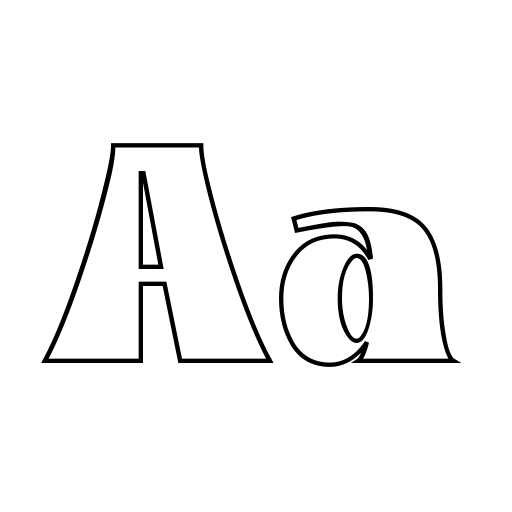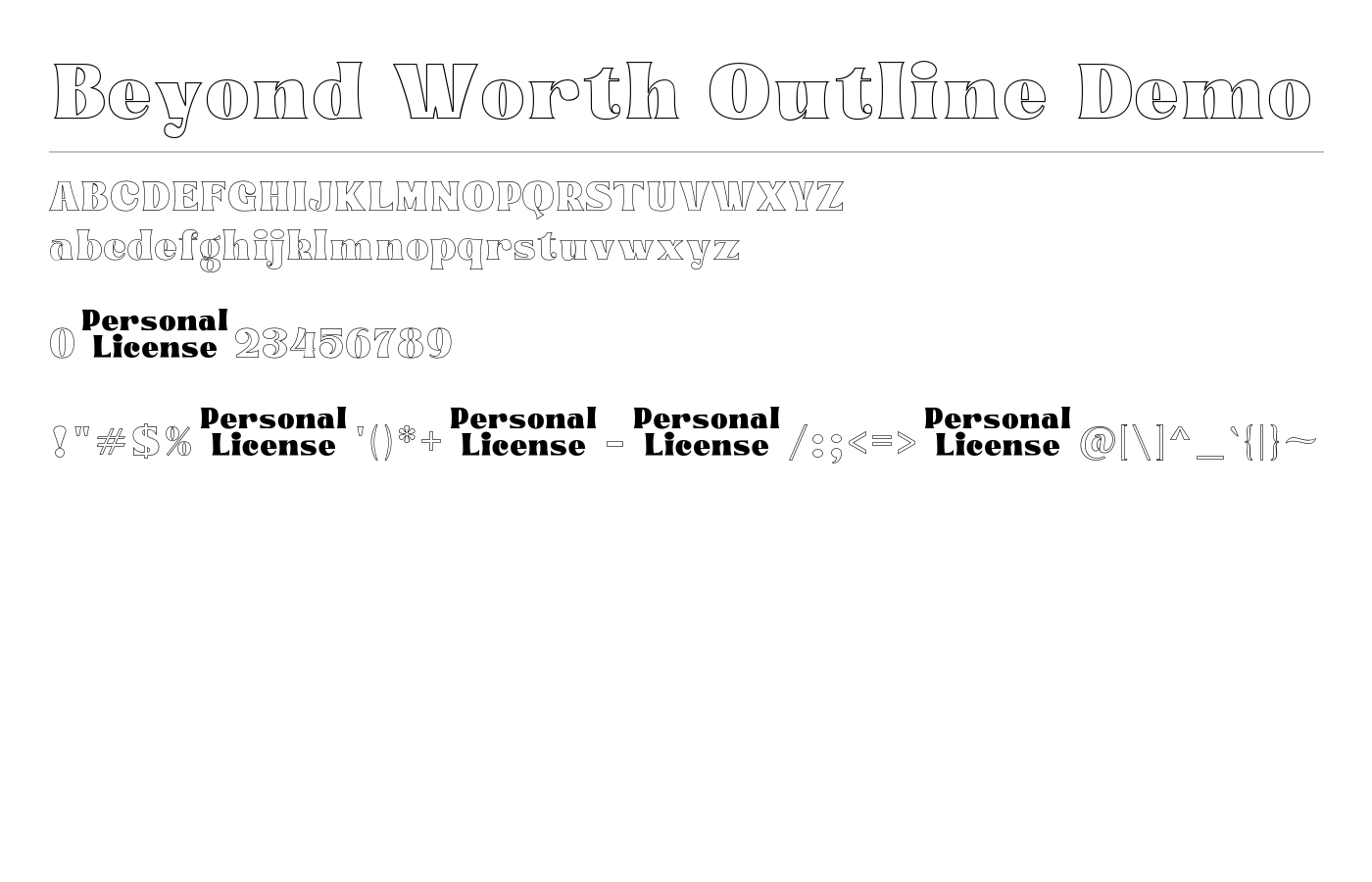
Beyond Worth Demo is a bold slab serif font with a distinctive outlined style that combines a vintage feel with modern flair. Its strong, blocky letterforms feature thick, bracketed serifs and high contrast between strokes, making it highly legible and eye-catching, perfect for display use in headlines, logos, and packaging. This font’s playful yet sturdy character suits brands looking to convey confidence and a touch of classic charm.
Beyond Worth Demo Font
About Beyond Worth Demo Font